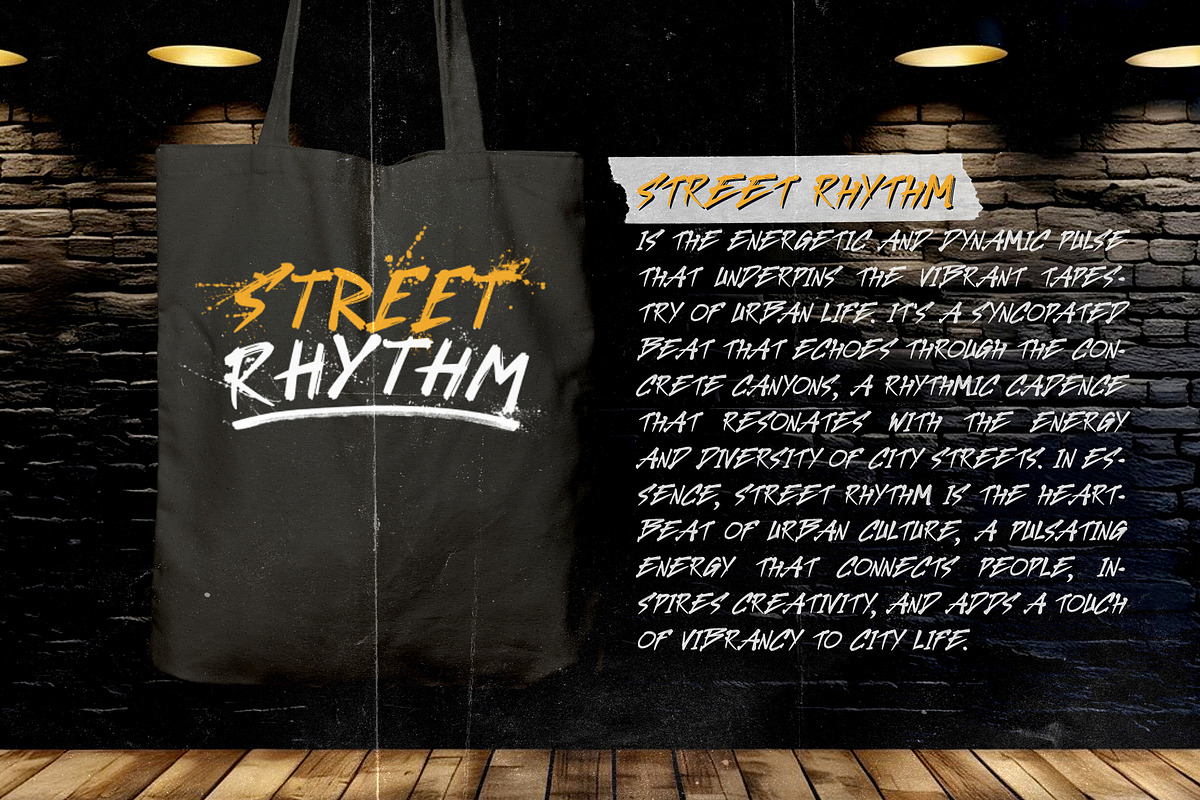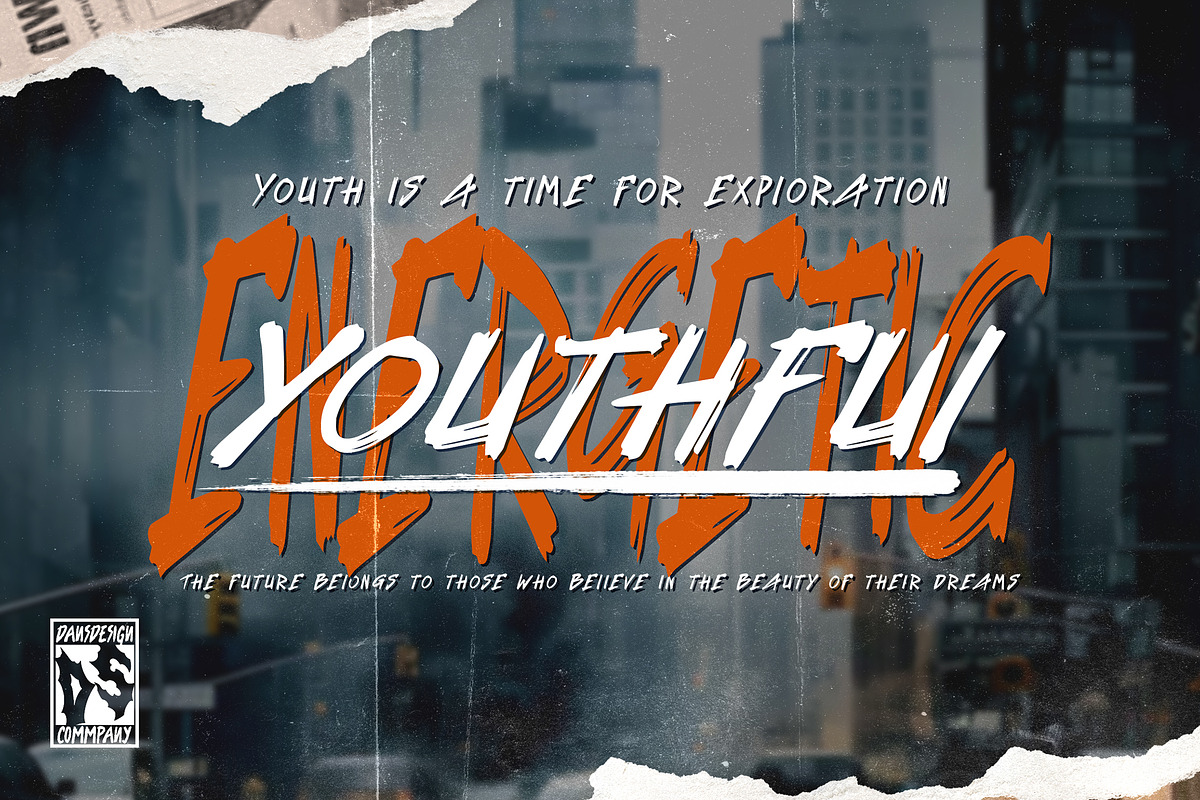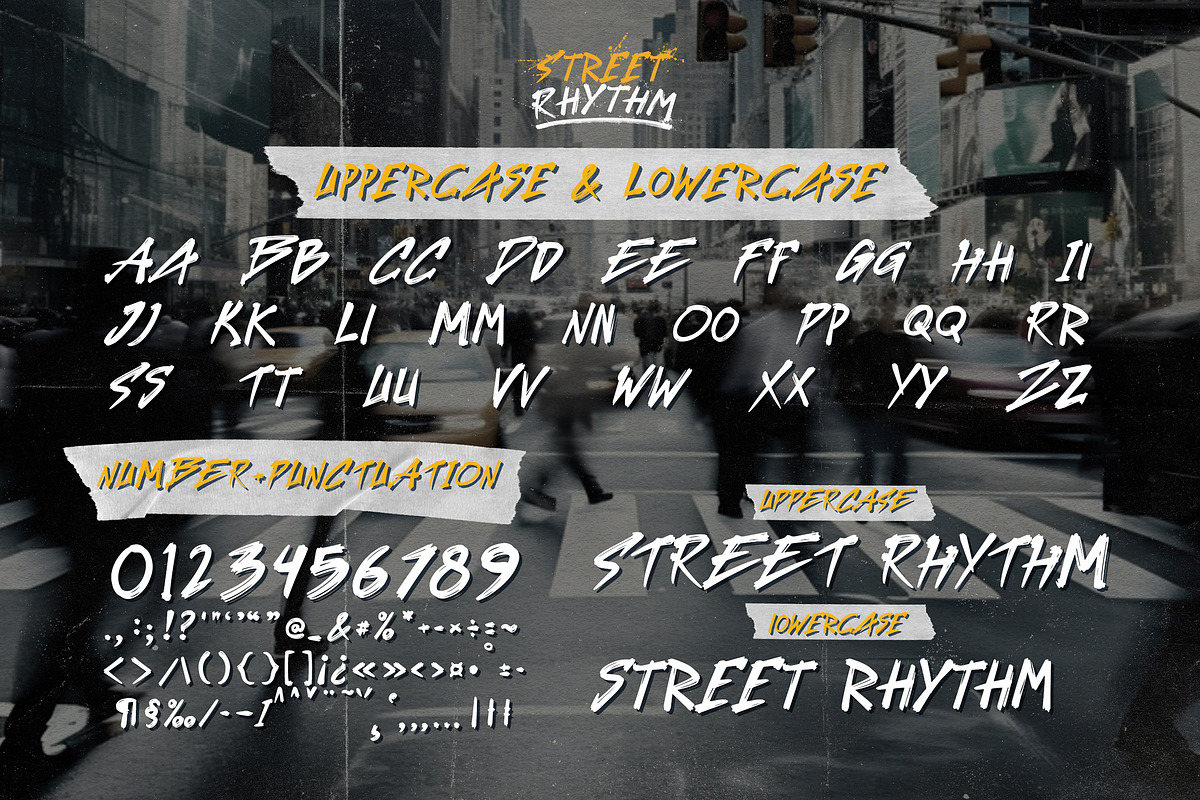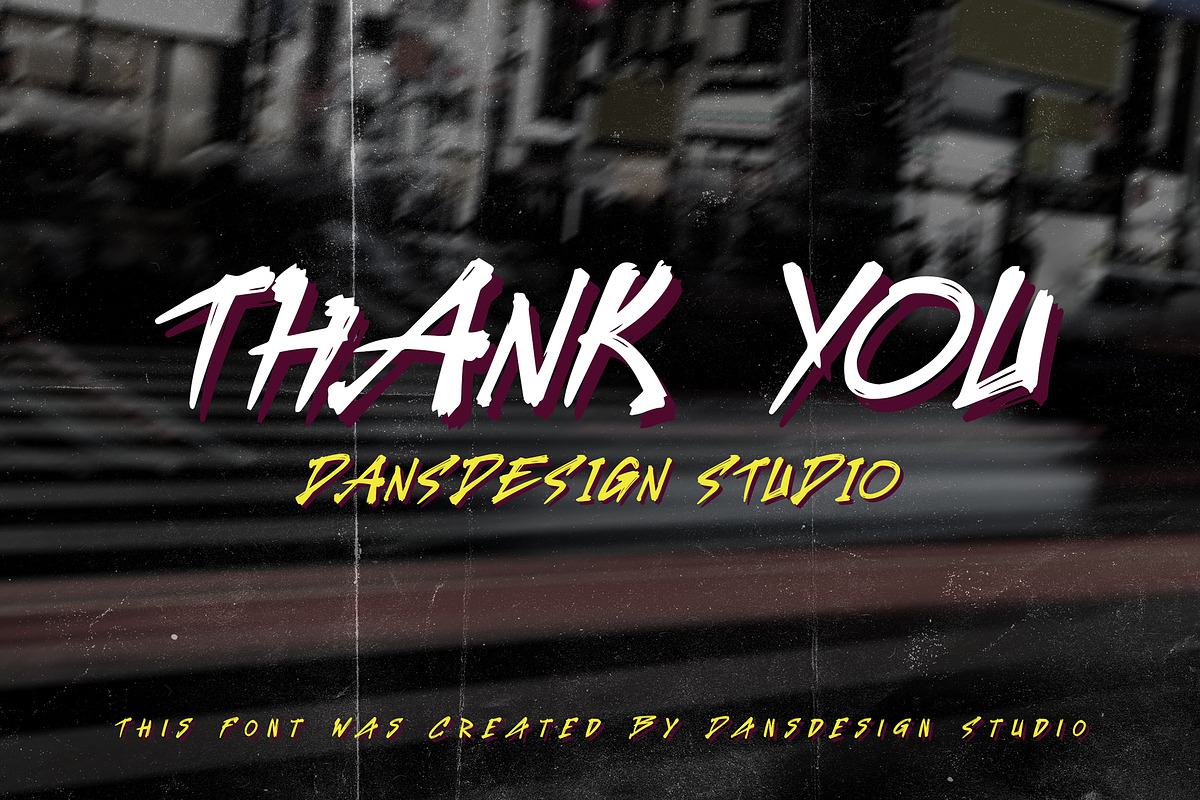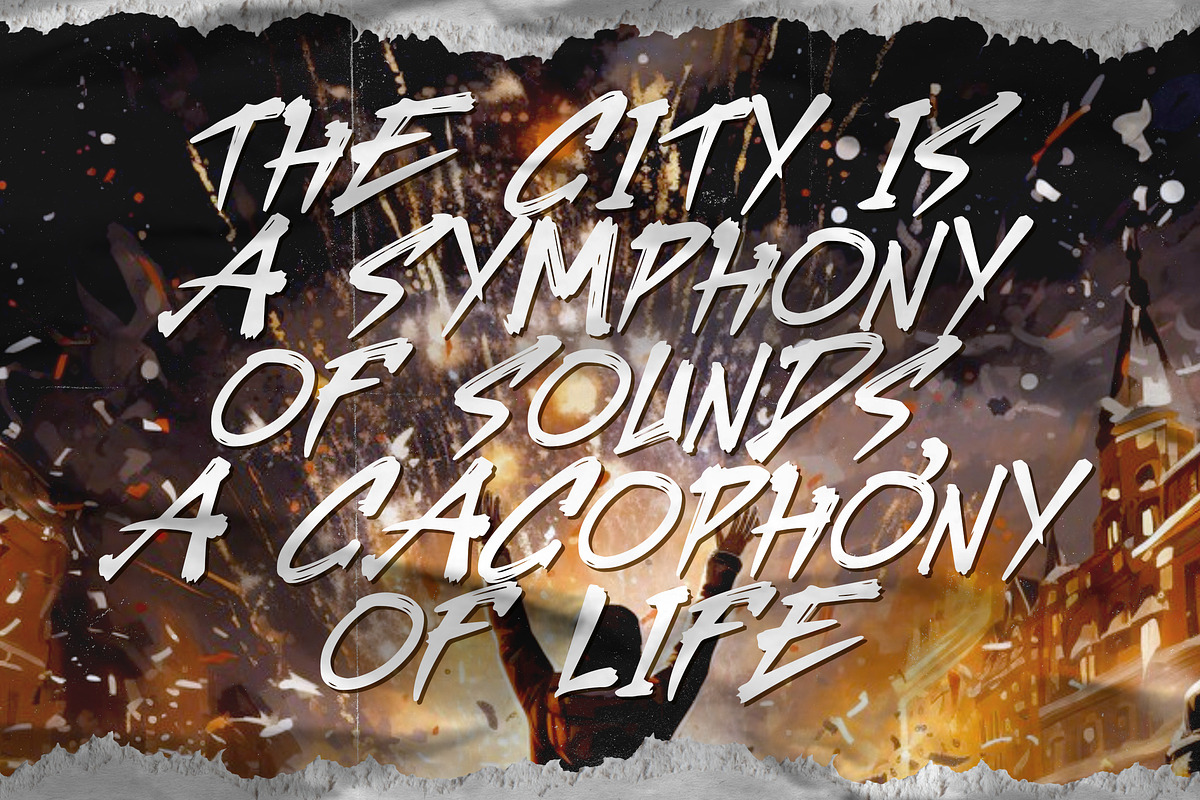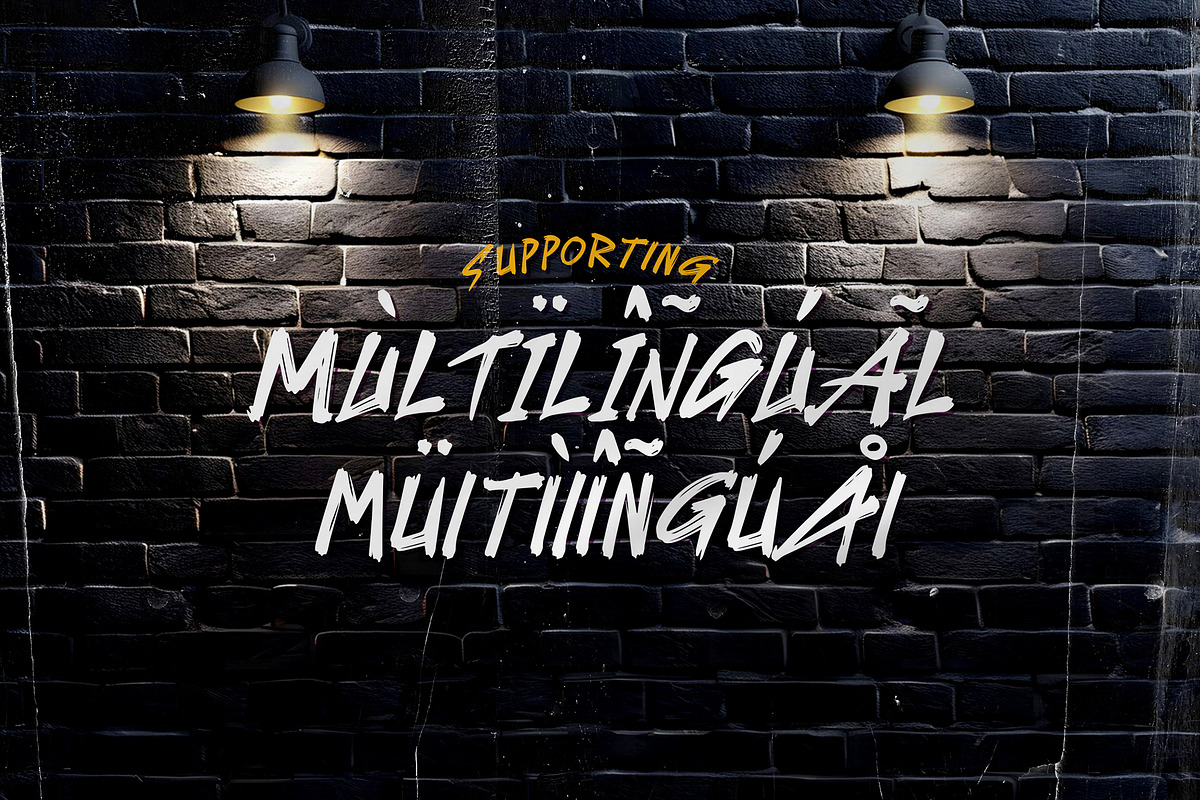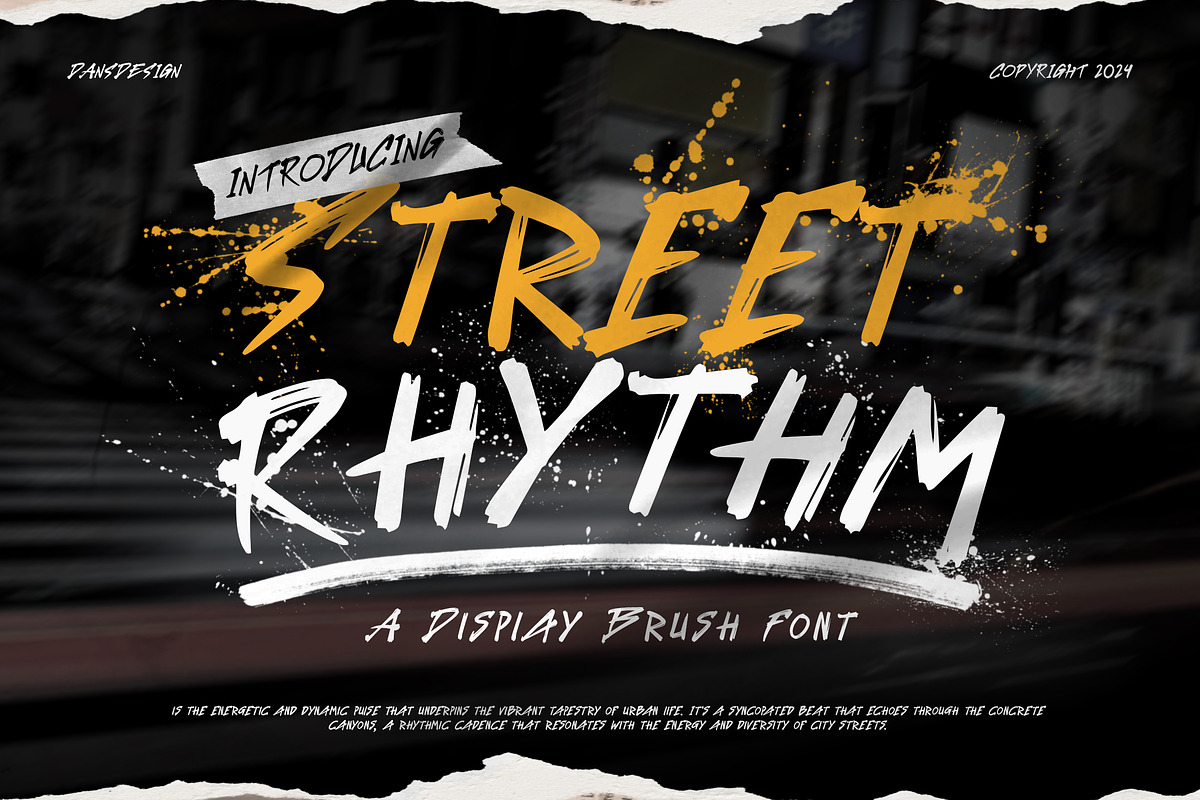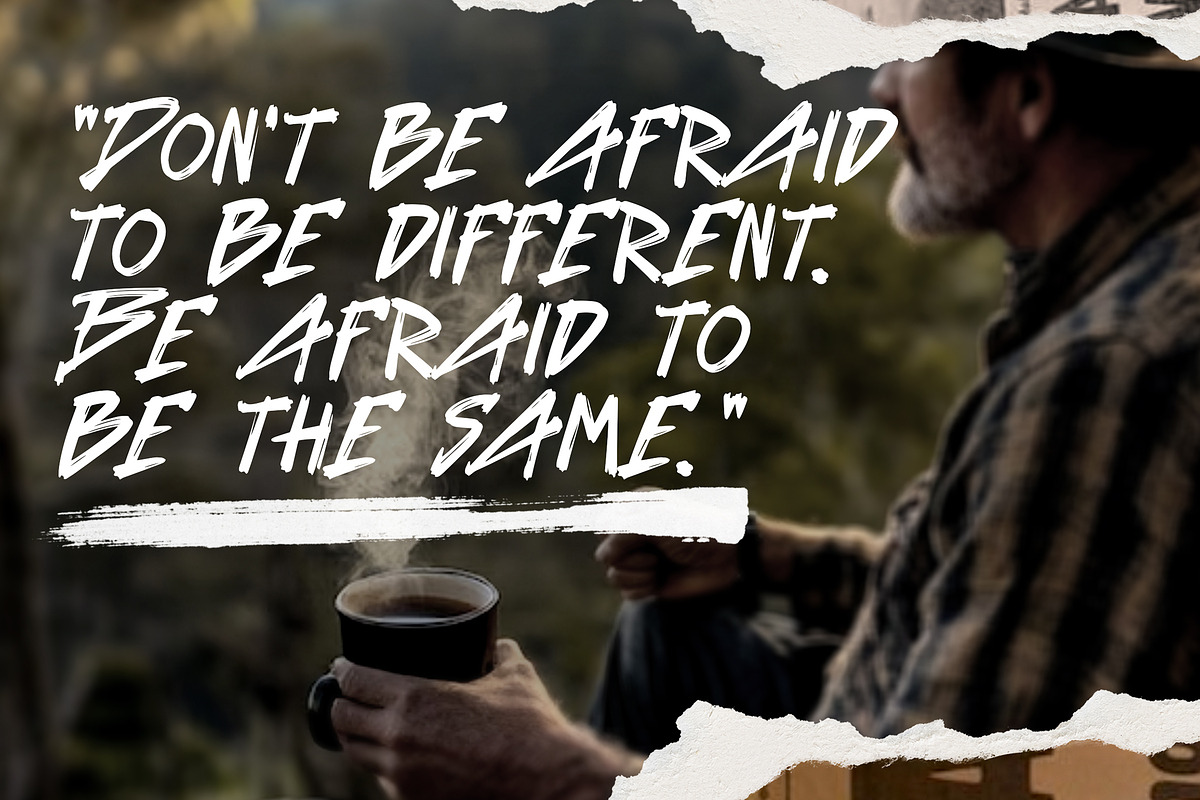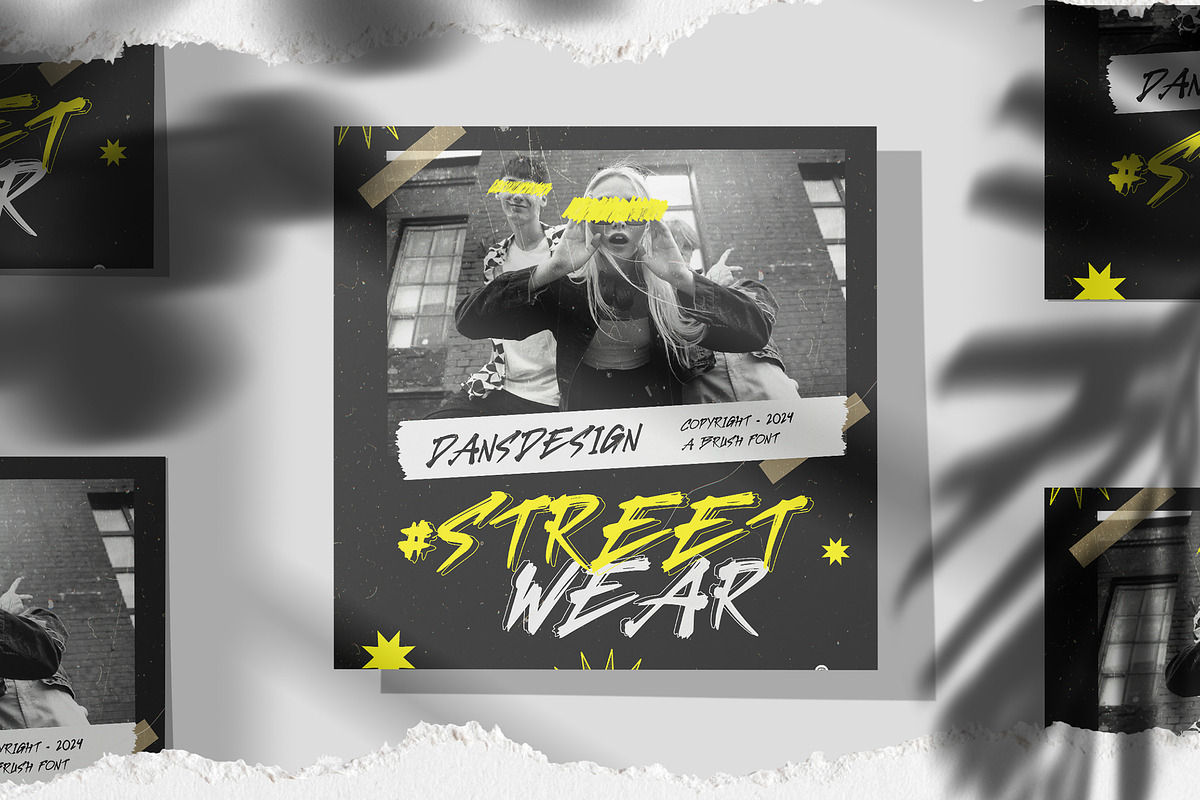
Street Rhythm Marker Graffiti Y2k Display Font
Street Rhythm Marker Graffiti Y2k Display Font is a distinct, highly detailed, and chic Marker Brush font. It would make a great choice for exquisite retro-urban designs, tattoo business branding, logos, vintage designs, movie, poster, apparel, illustration, and more.
Featured : Accents (Multilingual characters) PUA encoded Numerals and Punctuation (OpenType Standard)